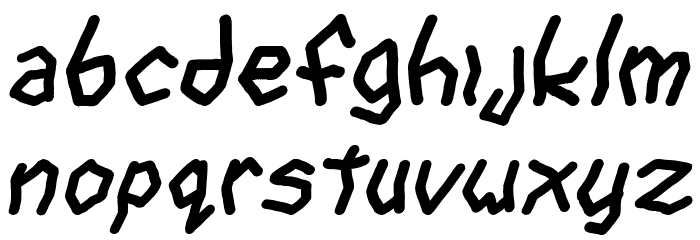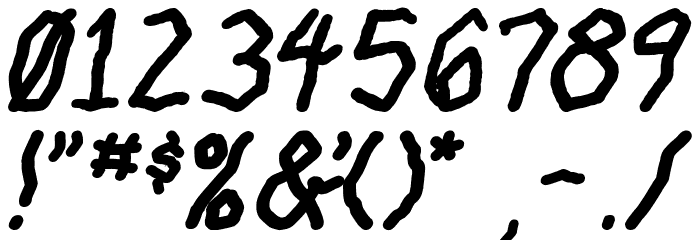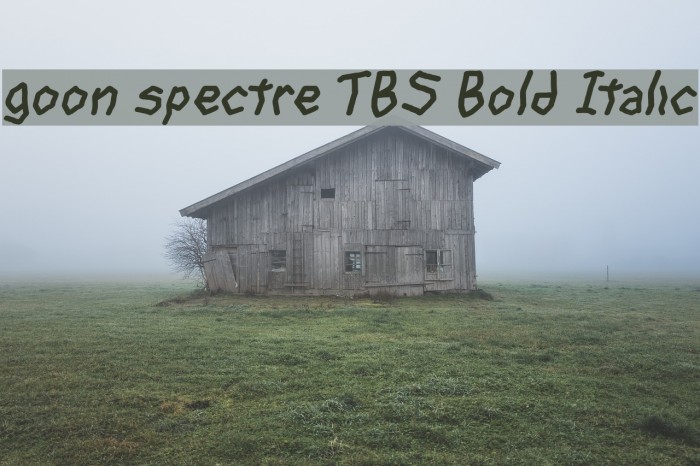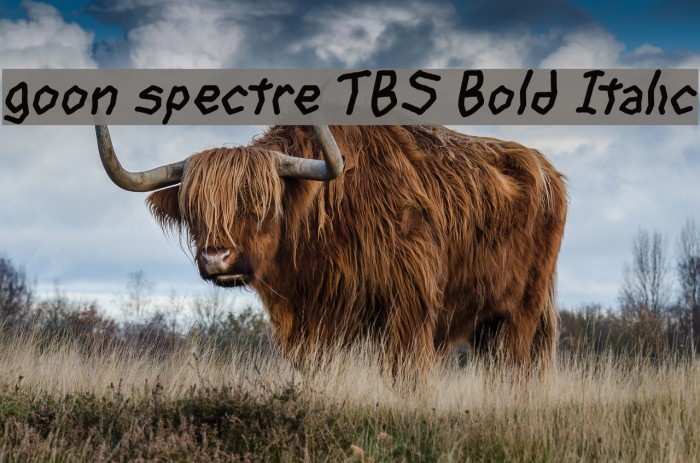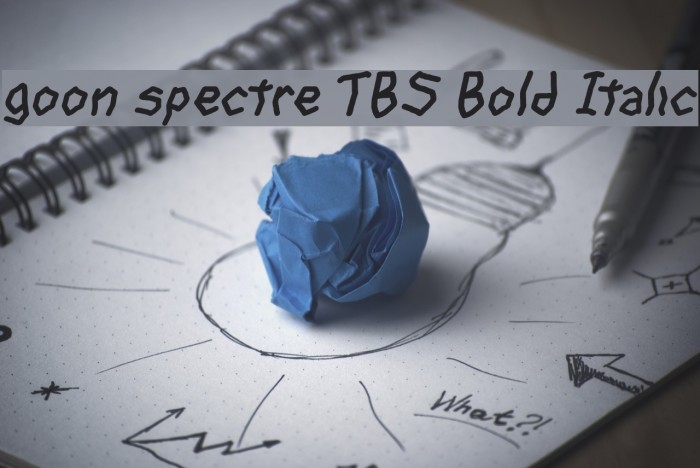
goon spectre TBS Bold Italic Font
This font exhibits a bold and italicized style with a hand-drawn, organic feel. The characters are slightly slanted, contributing to a dynamic and energetic appearance. The strokes are thick and uneven, adding a playful and informal touch. The uppercase and lowercase letters maintain a consistent style, with the uppercase being more pronounced. Numbers and special characters follow the same bold and expressive design, making them stand out. The overall impression is one of creativity and spontaneity, suitable for projects that require a personal and artistic flair.
A bold, italic, hand-drawn font with a playful and dynamic style.
- Proposed Projects: Ideal for creative projects such as posters, invitations, comic books, and artistic branding.
- Use Case: Headlines, Logos, Artistic projects